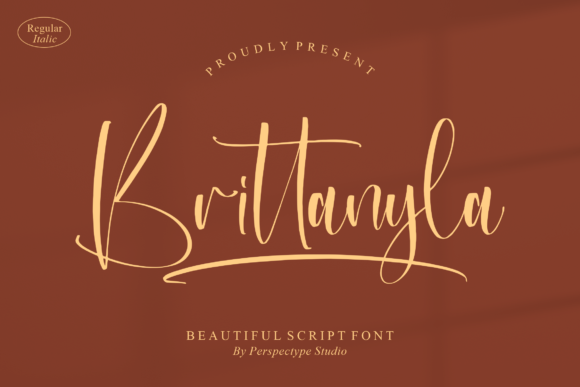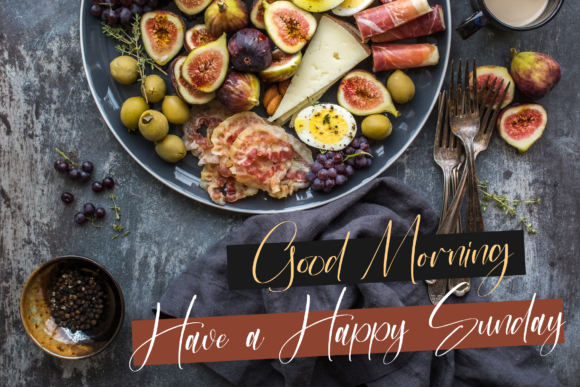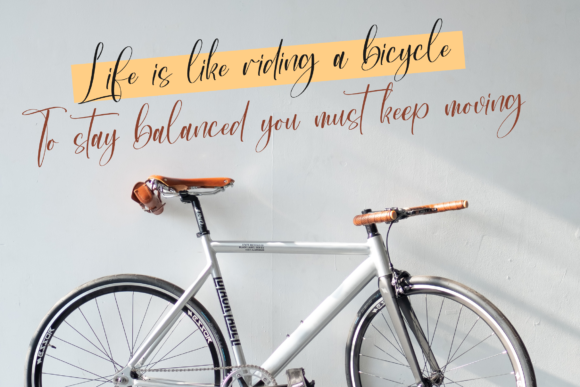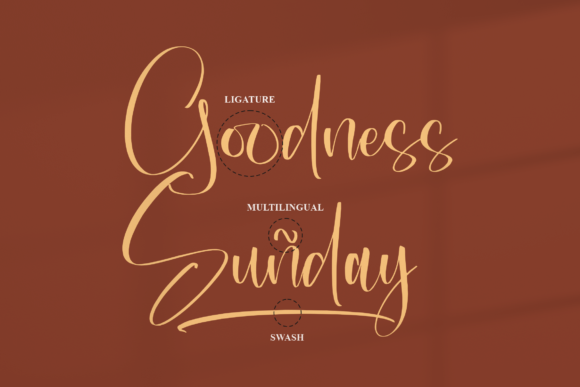
About Brittanyla Font
Brittanyla, a beautiful script font, brings an air of sophistication to your projects, making it particularly well-suited for more refined and elegant designs. Its graceful curves and stylish letterforms add a touch of luxury, making it an excellent choice for branding and logo design projects where an elevated aesthetic is desired.
The font’s ability to convey both beauty and style makes it a versatile option for various creative endeavors. Whether used for branding, logo design, or other sophisticated projects, Brittanyla stands out by adding a sense of luxury and refinement.
One notable feature of Brittanyla is its PUA encoding, ensuring convenient access to a wide array of amazing glyphs and ligatures. This enhances the font’s usability, allowing designers to effortlessly incorporate unique and decorative elements into their work.
In essence, Brittanyla is more than just a font; it’s a design tool that brings a touch of luxury and style to your branding and logo design projects. With its beautiful script and PUA encoding, Brittanyla offers both elegance and accessibility, making it a valuable asset for designers seeking to infuse sophistication into their creative work.